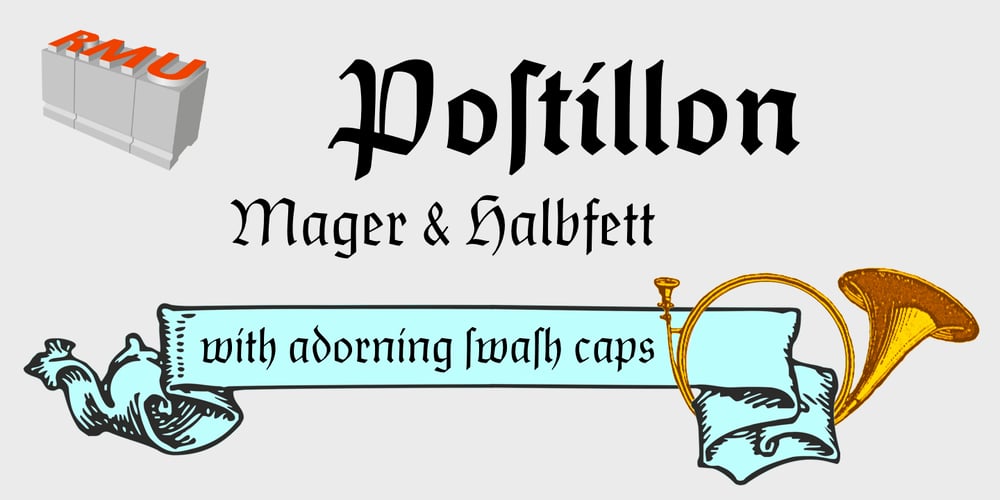
Postillon
Postillon font
Postillon Font Family was designed by Herbert Post, Ralph M. Unger and published by RMU. Postillon contains 2 styles and family package options. Herbert Post’s (1903-1978) blackletter fonts redesigned for nowadays’ use. Both font styles contain adorning swash caps. Typing N, o, and period, and activating the OT feature Ordinals produces an oldstyle number sign.